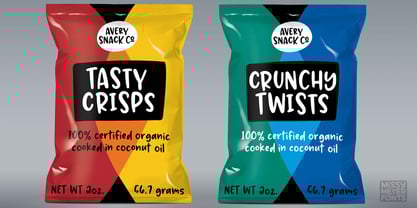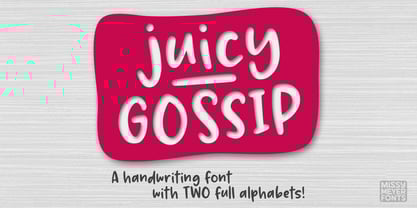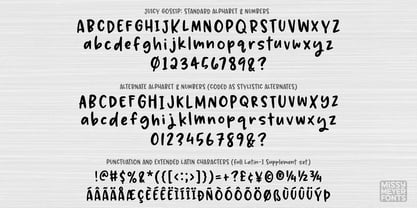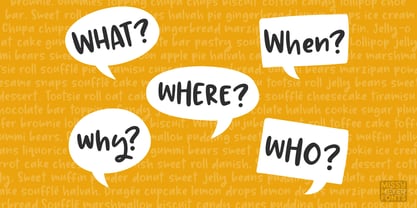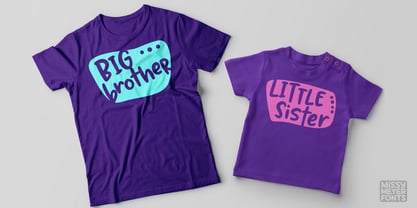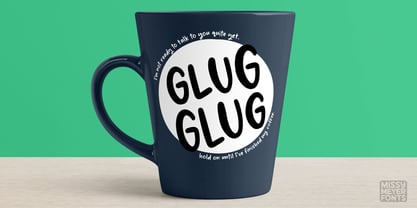
Juicy Gossip
Say hello to JUICY GOSSIP, a fun handwriting font with two uppercase sets, two lowercase sets, and two sets of figures to help give your projects that hand-lettered feel!
With 64 alternates (26 uppercase, 26 lowercase, 10 numbers, plus the ampersand and question mark), plus 30 double-letter ligatures (15 uppercase, 15 lowercase), this font can lend a fun, bouncy, hand-crafted look to your logo, branding, design, cut file, print, or anything else you want to create!
- The usuals: A-Z, a-z, 0-9, and plenty of punctuation;
- 64 alternates (A-Z, a-z, 0-9, ? and &);
- 30 double-letter ligatures;
- Over 60 extended Latin characters, including the full Latin-1 Supplement set;
- PUA-encoded for easy access to all characters; alternates are also coded as Stylistic Alternates!